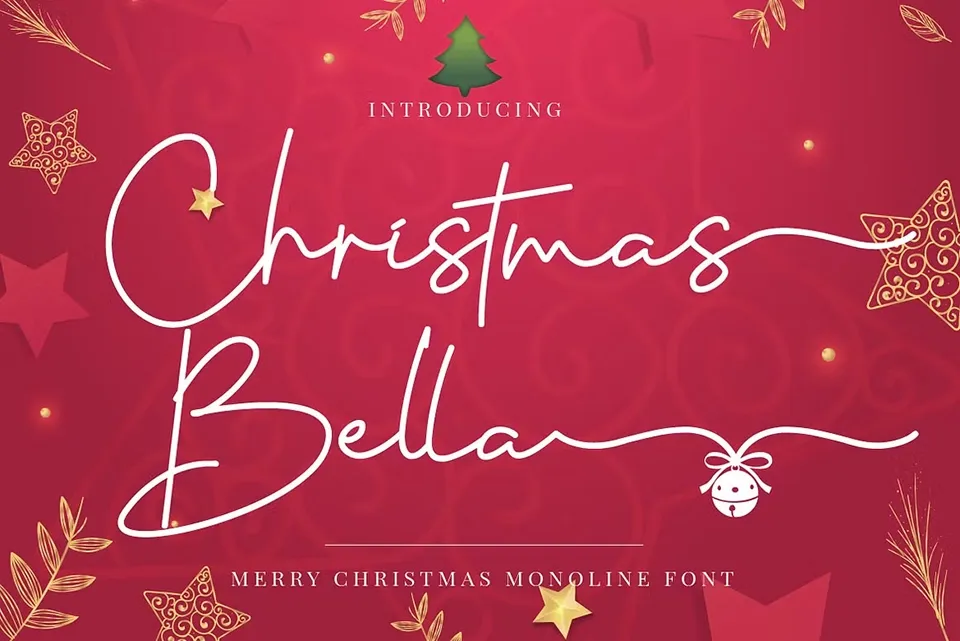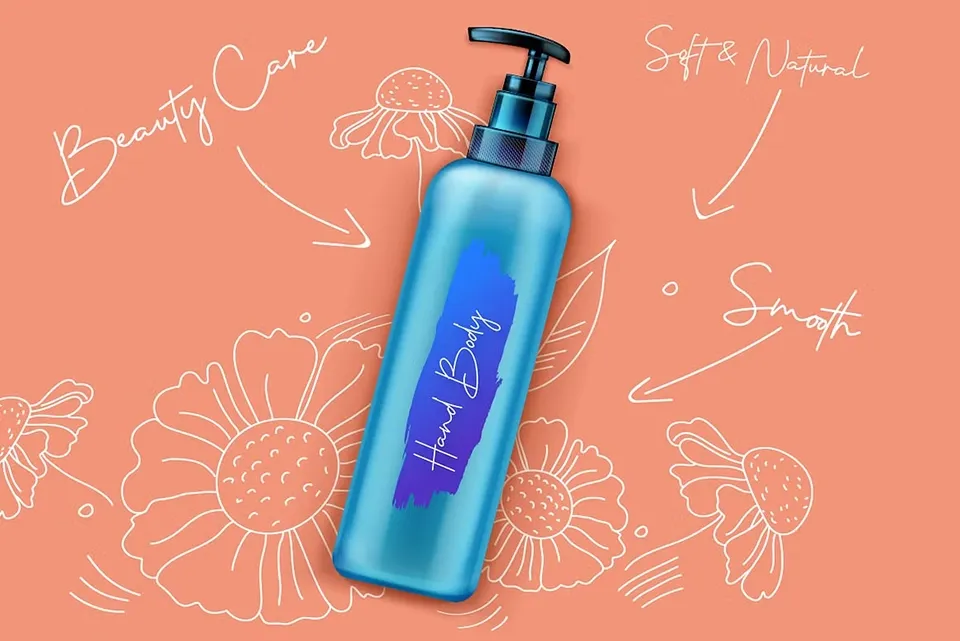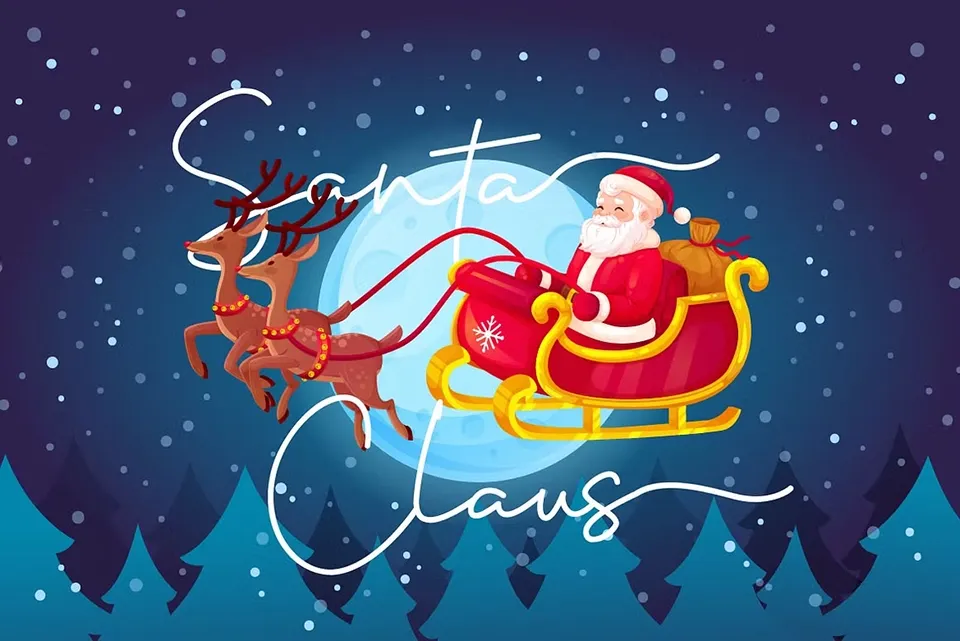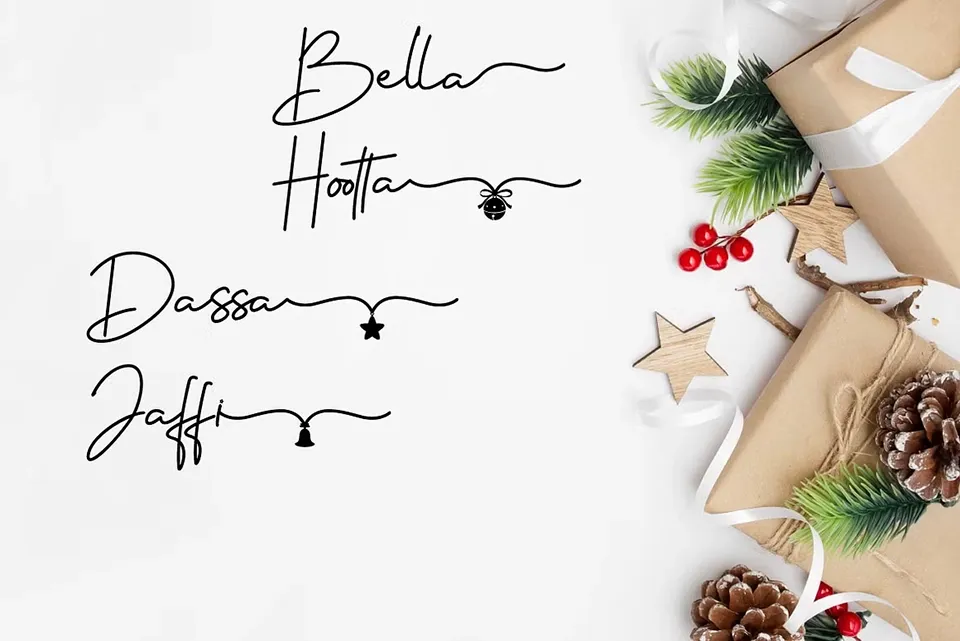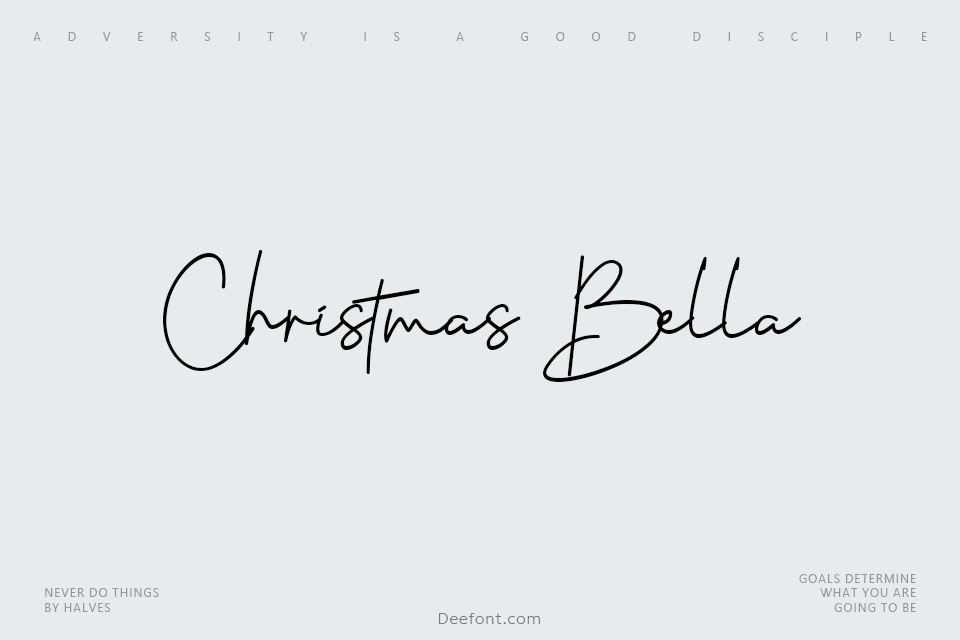
Christmas Bella Font
Christmas Bella Font is a modern, monoline handwritten script typeface designed to bring a personal and elegant touch to your holiday-themed projects. With its natural movement and delicate lines, this font is perfect for branding, logos, wedding invitations, and festive designs, capturing the joyful spirit of Christmas with a stylish flair.